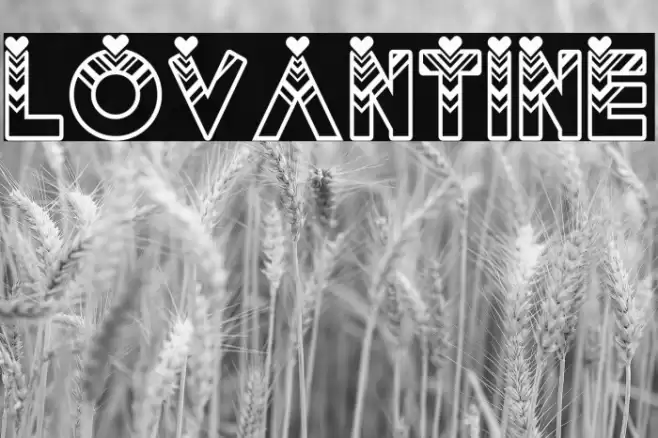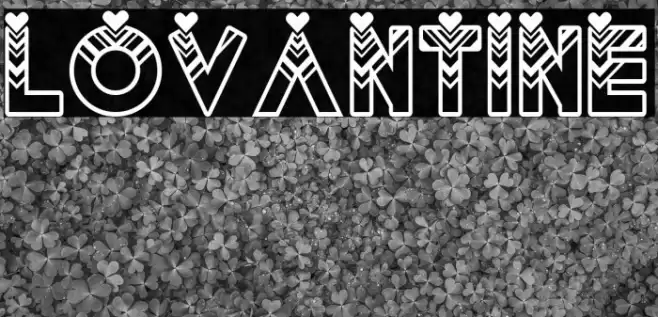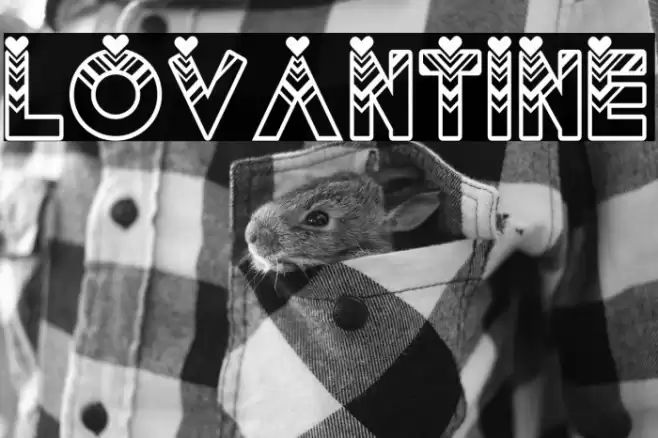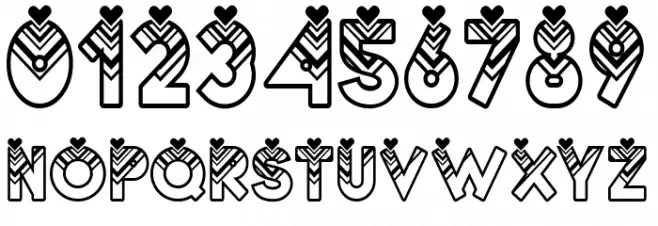
Lovantine Font
Lovantine Description
This font features a playful and decorative style with heart motifs integrated into the design of each character. The letters are bold and outlined, with a unique pattern that includes stripes and geometric shapes. The uppercase and lowercase letters maintain a consistent theme, making the font cohesive and visually appealing. The numbers and special characters follow the same decorative style, ensuring uniformity across all elements. This font is ideal for projects that require a fun and whimsical touch, such as greeting cards, children's books, or playful branding.
A playful, heart-themed decorative font with bold outlines and geometric patterns from Regular fonts.
- Proposed Projects: Ideal for greeting cards, children's books, playful branding, and decorative posters.